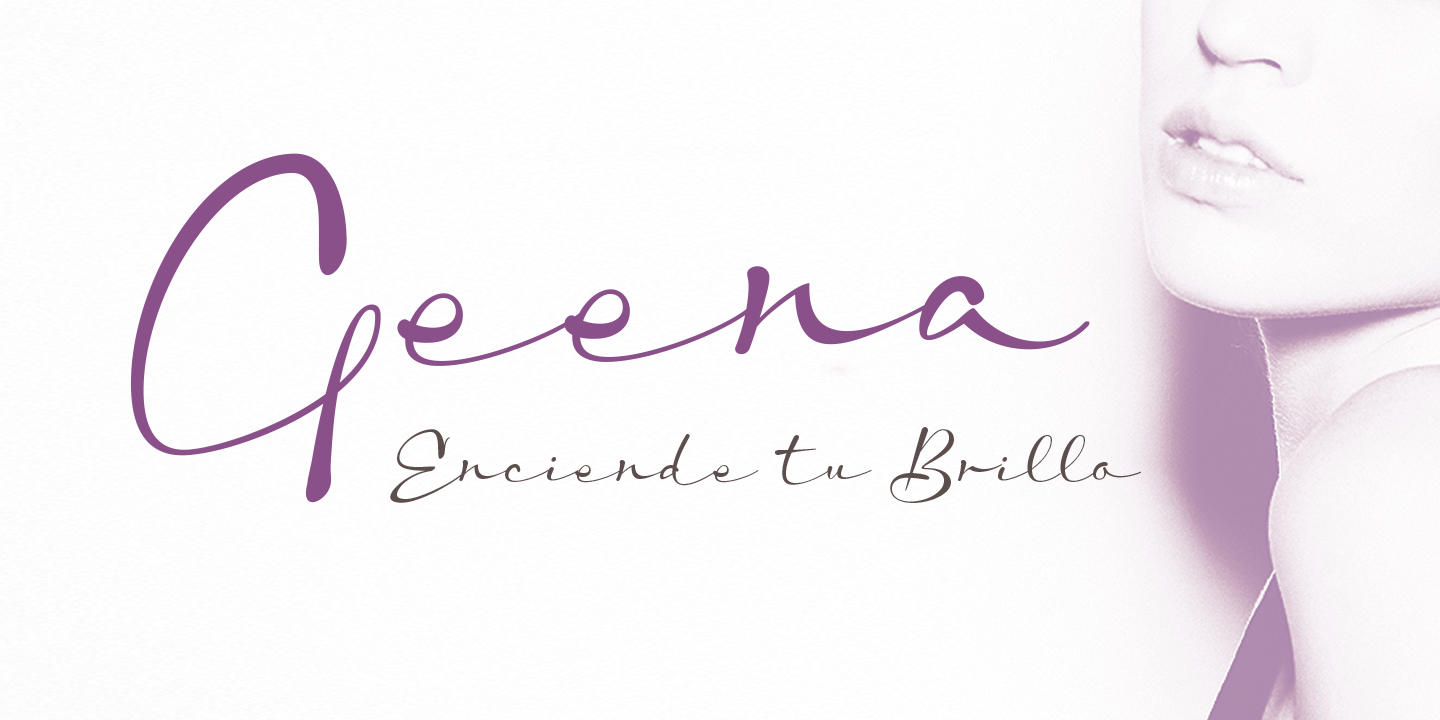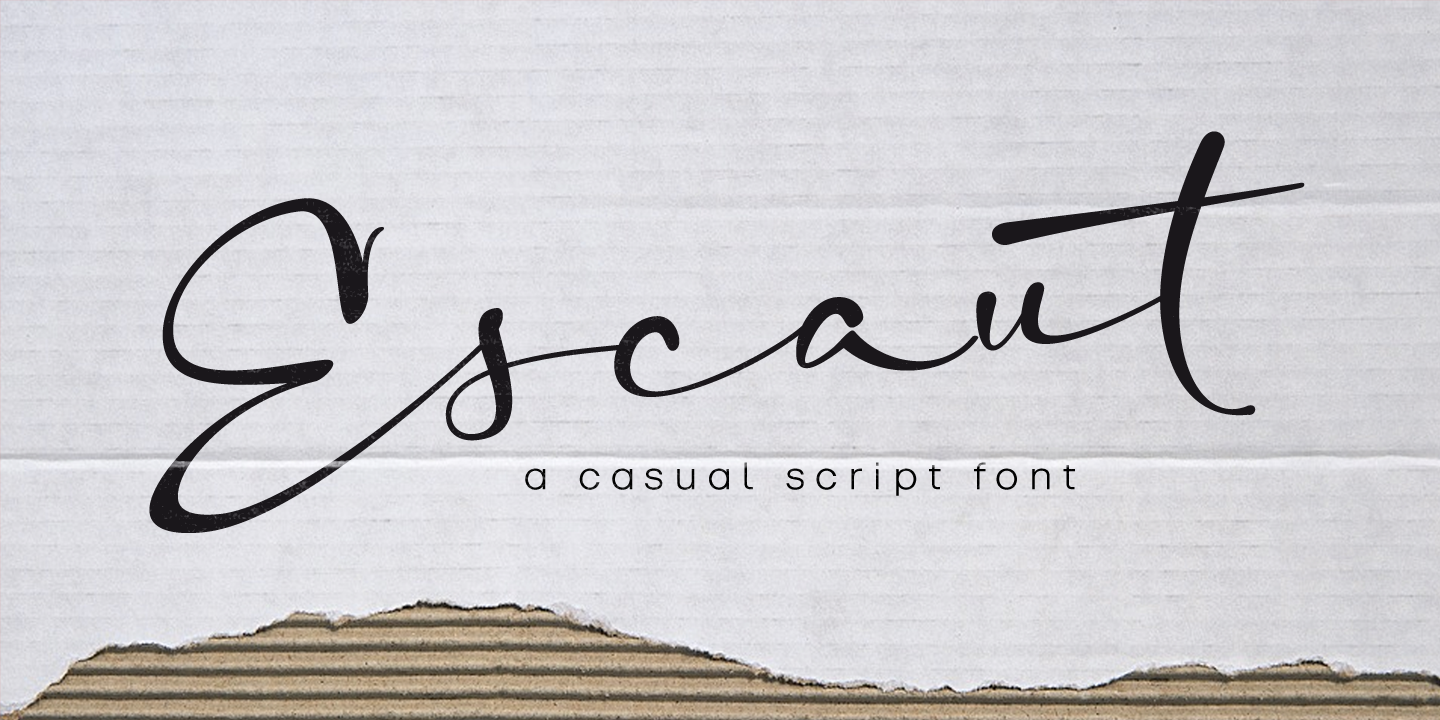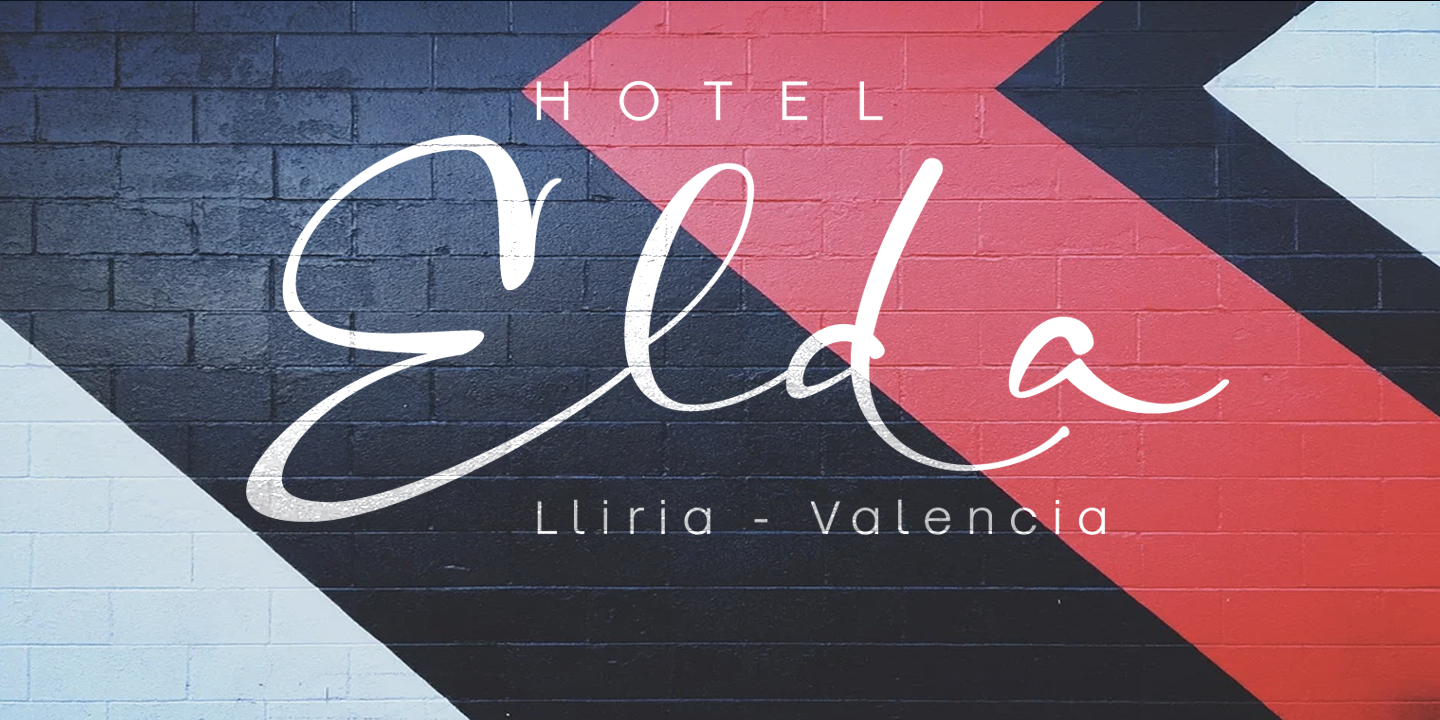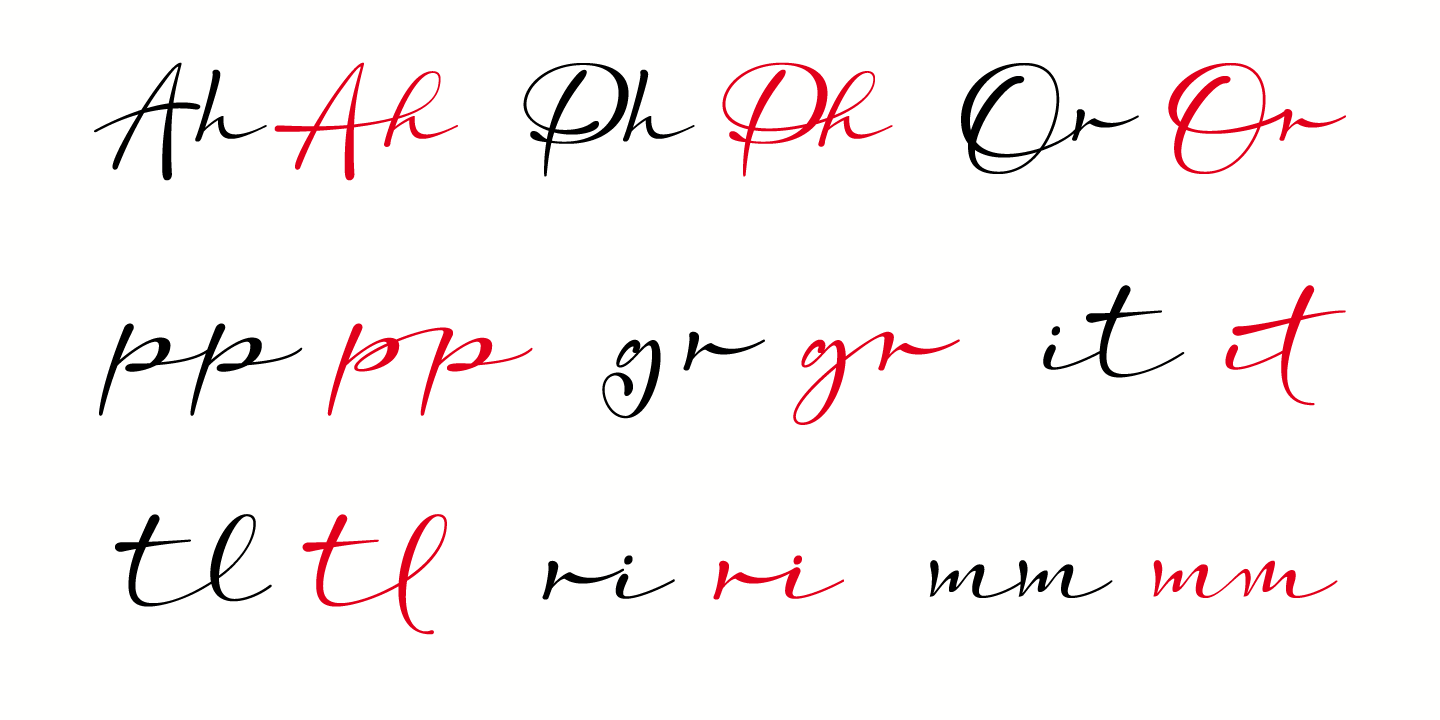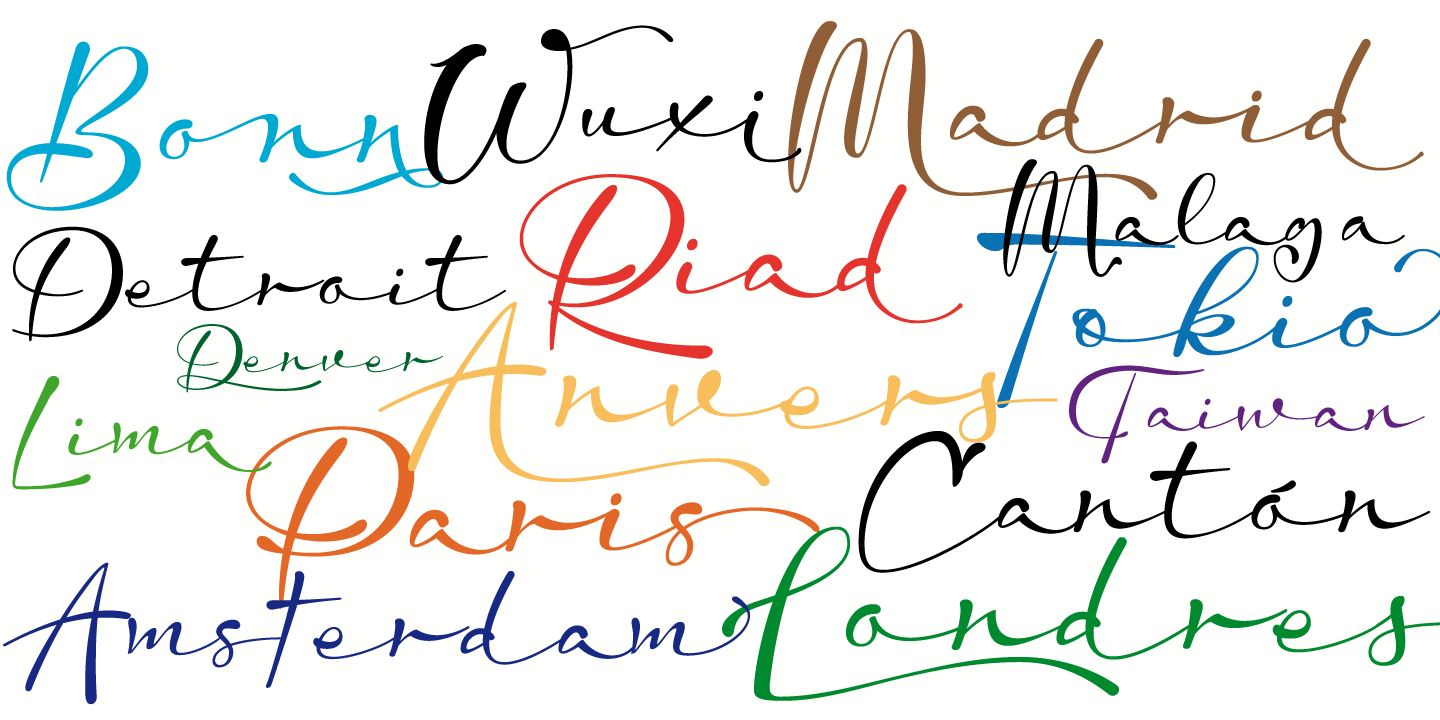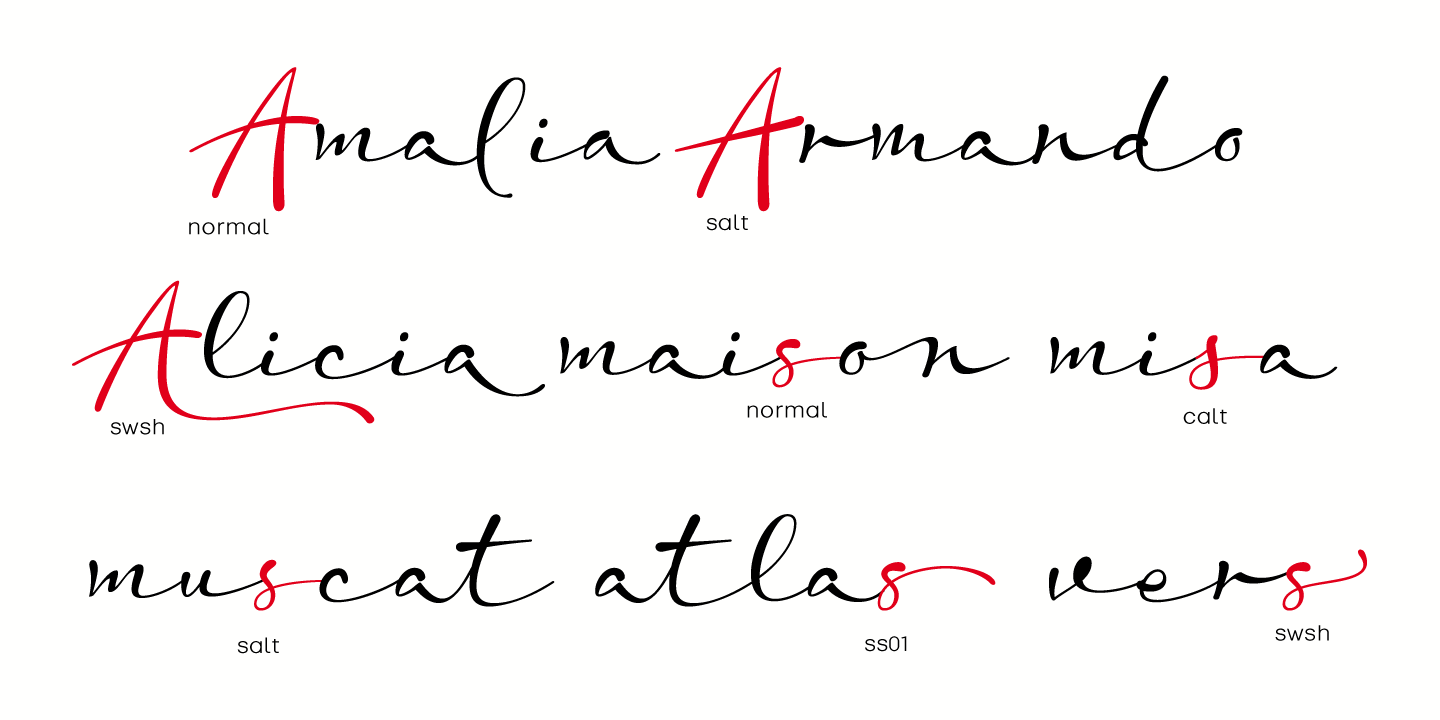
Escaut
DESIGNED BY
Carine de Wandeleer
A Casual Modern Calligraphy
Escaut is a modern calligraphic font, with a casual style and a lot of rhythm. It moves across the page with an energetic flow that captures the spontaneity of quick, confident lettering.
Designed with Authentic Ink Texture
It is designed with a pen with its characteristic ink discharges. This detail gives the typeface a raw, organic quality, preserving the imperfections that make handcrafted design so appealing.
Realistic Handwriting Flow
Escaut includes a huge variety of ligatures and decorative characters in upper and lower case, to give it more handwriting reality. These features ensure that connections remain smooth and varied, allowing you to create text that looks less like a font and more like natural writing.